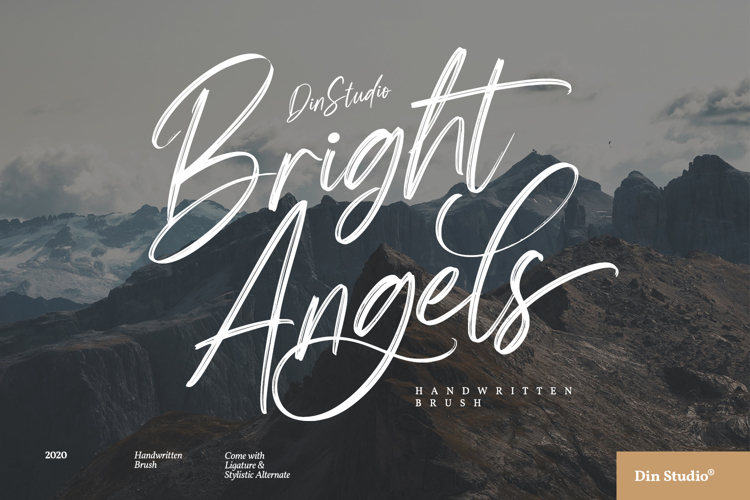
Bright Angels Font
Product Description :
Bright Angels – A Handwritten Font. This handcrafted typeface combined with a brush style looks very elegant for loads of different projects and promotions. It is very suitable to use for your websites, social media brandings, Pinterest banners, printed invitations, and more.
Features include:
• Alternates
• Ligatures
• Stylistic Sets
• Multilingual Supports
• Numerals and Punctuations